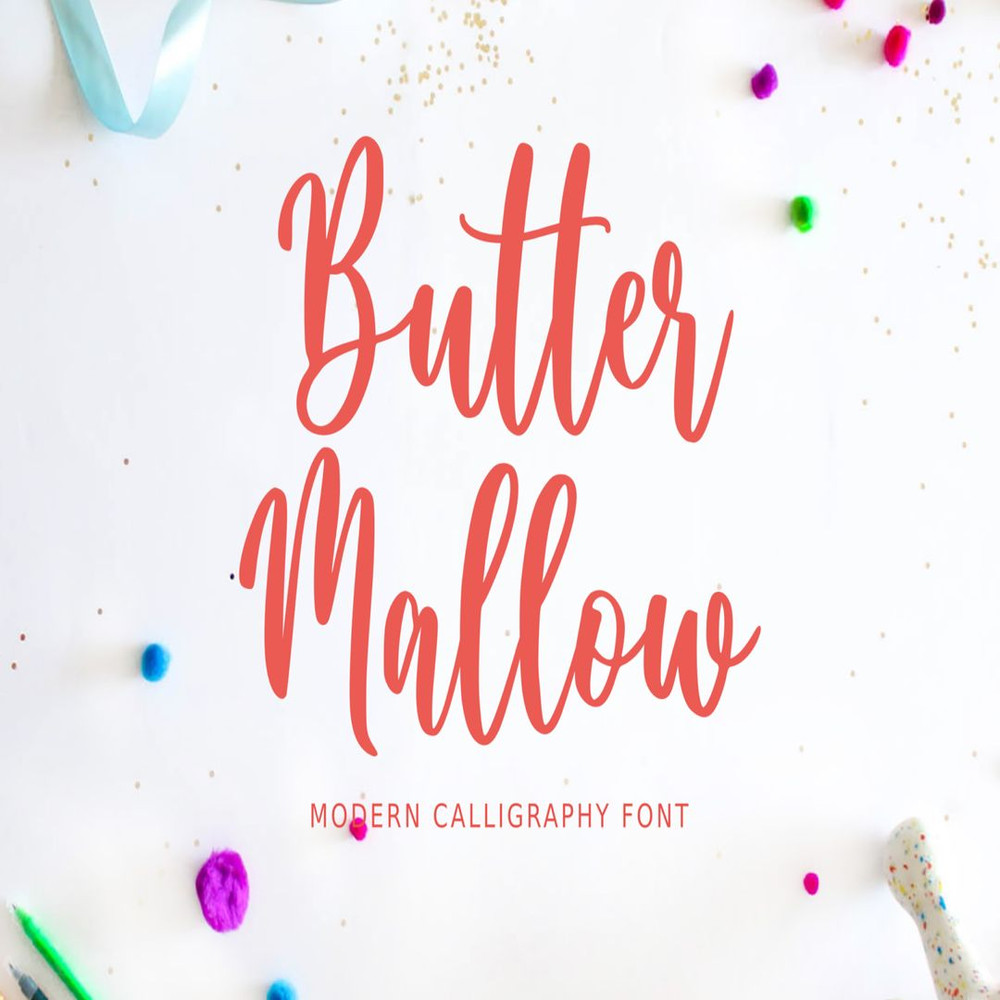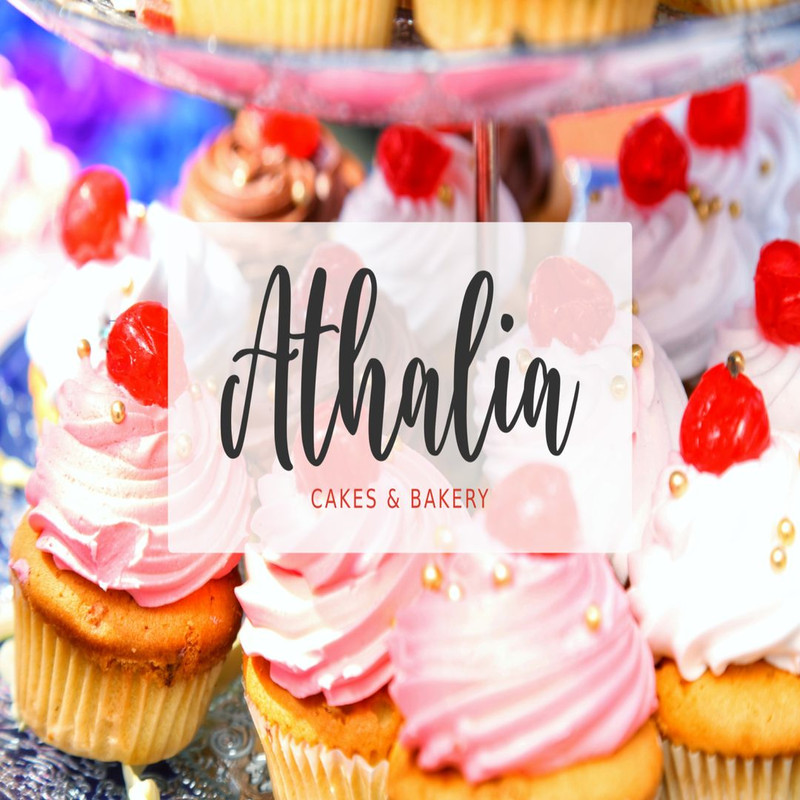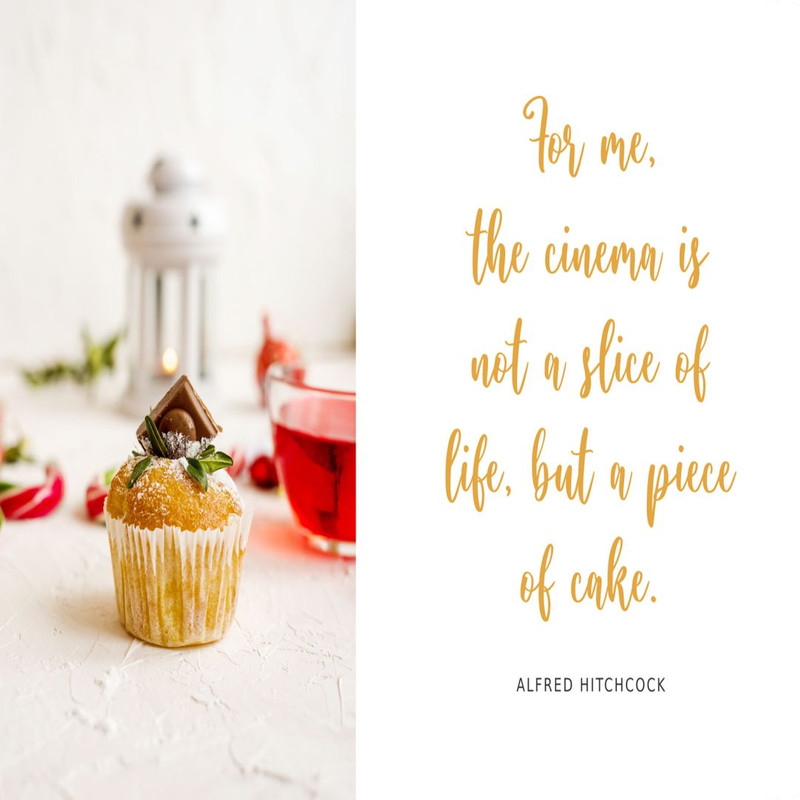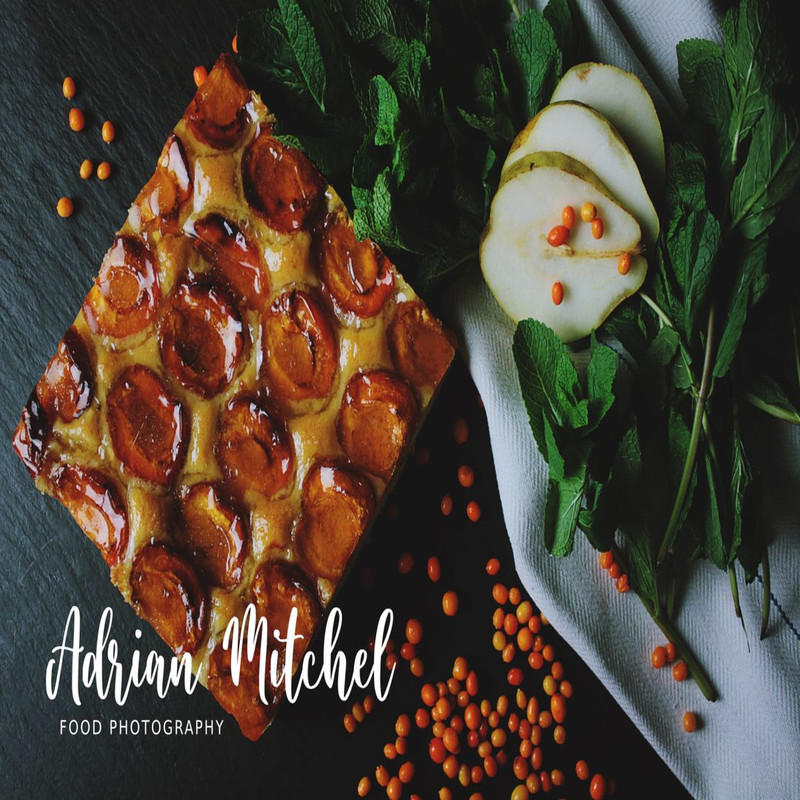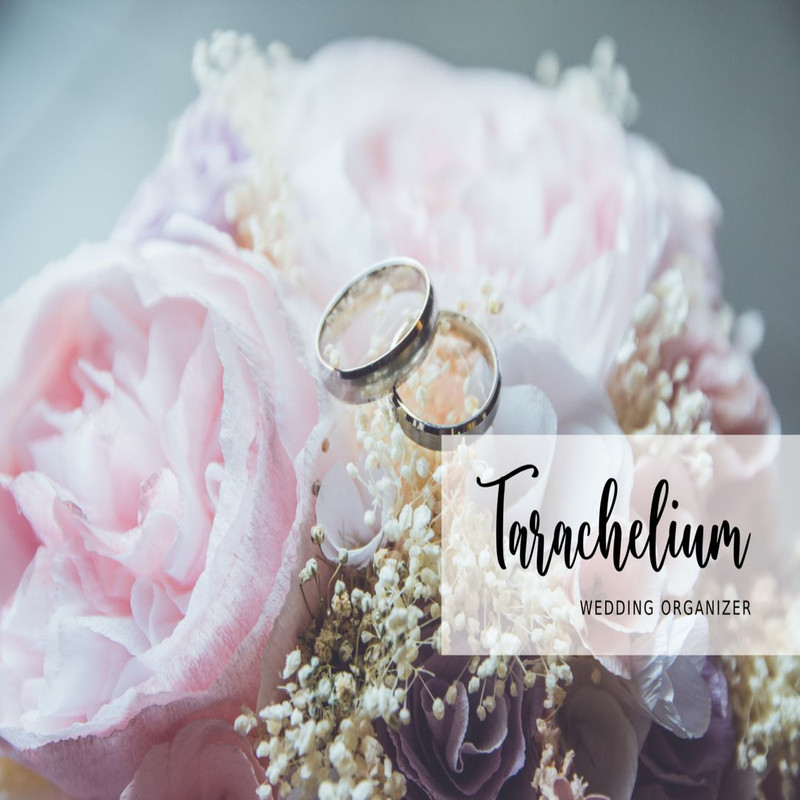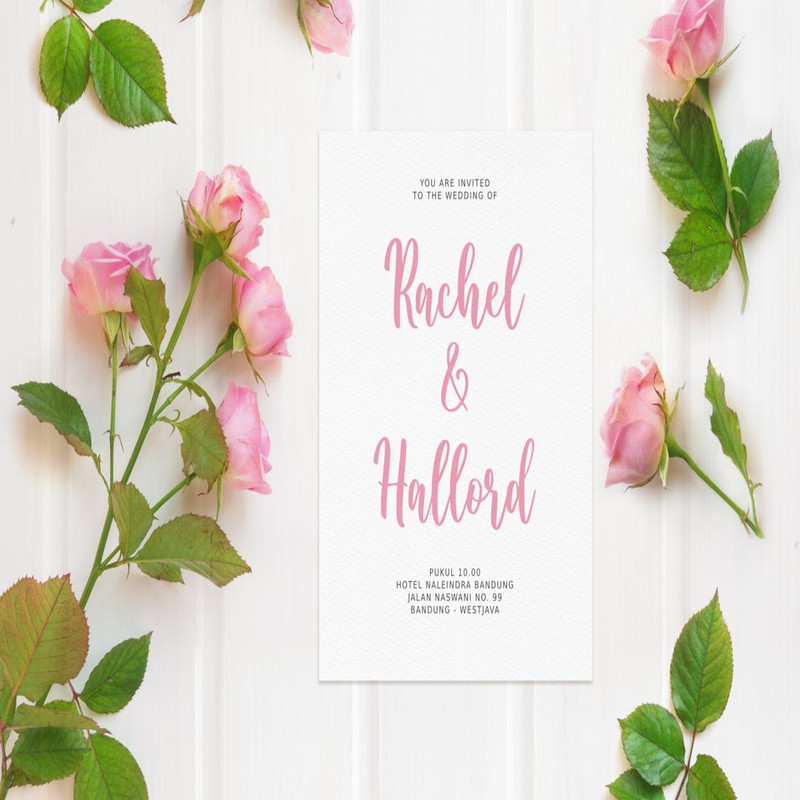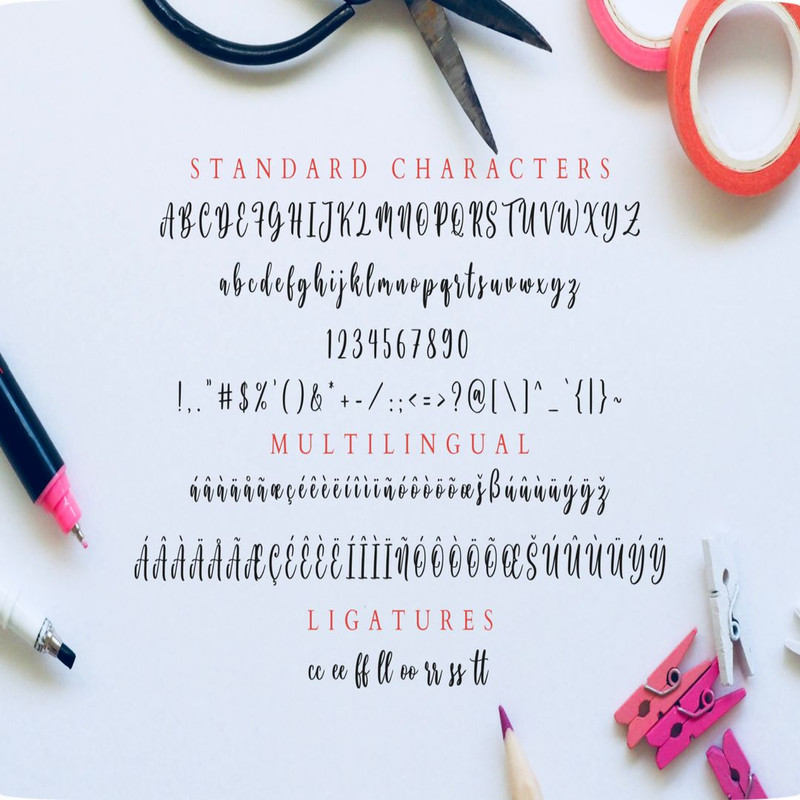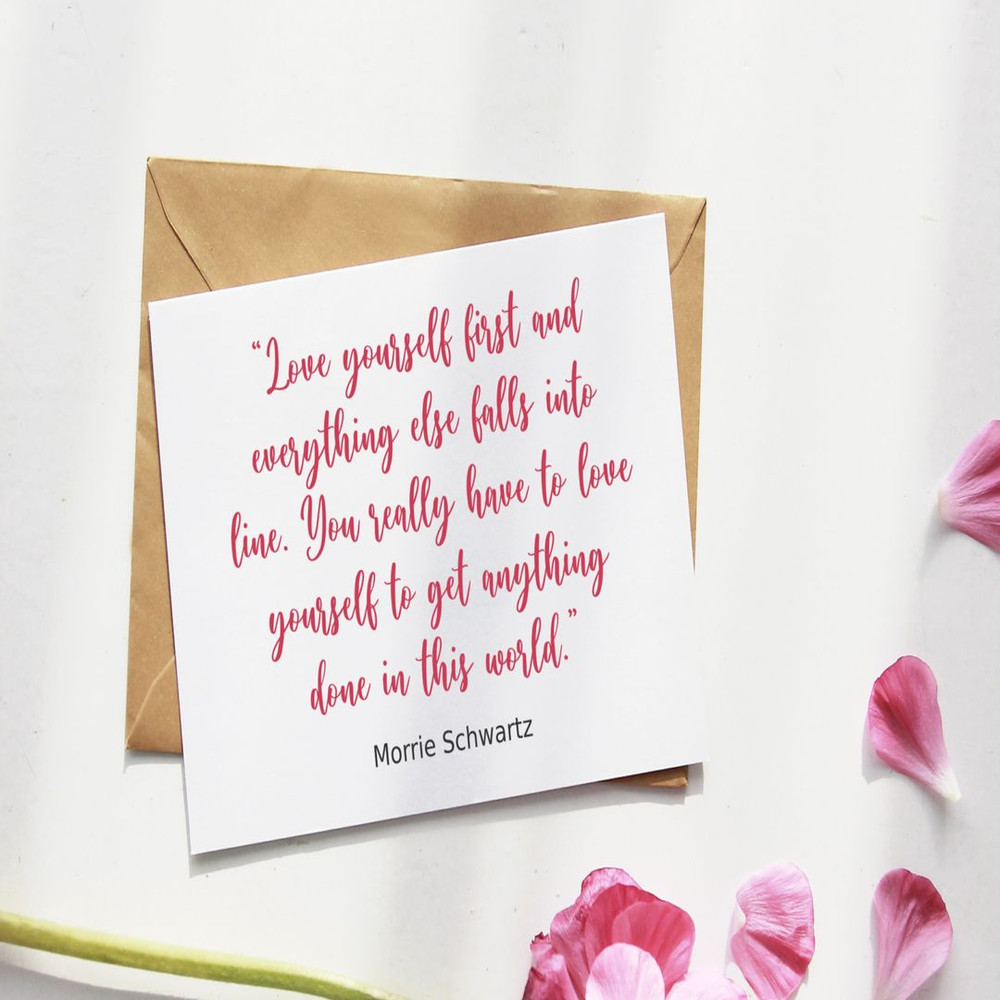
Butter Mallow Trending Fonts - Digital Font
Butter mallow is a modern calligraphy font. It comes with some ligatures that make the font look beautiful and natural.
It’s perfect for logos, product packaging, wedding invitations, branding, headlines, signage, labels, signature, book covers, posters, quotes and more.